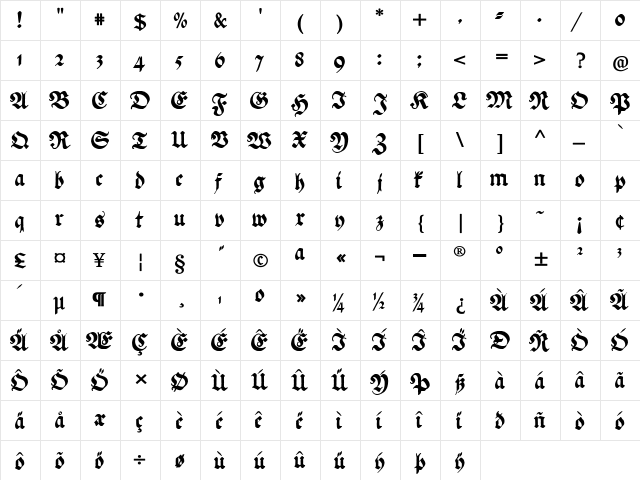
Ehmcke Federfraktur Regular
| Foundry | Peter Wiegel |
| Designer | F. H. Ehmcke um 1935 |
Design Context for Ehmcke Federfraktur Typeface
Ehmcke Federfraktur channels the dramatic heritage of Fraktur and Gothic scripts, bringing a sense of historical gravitas to any design.
Well-suited to band logos, craft beer branding, tattoo lettering, and heritage-themed identities.
Font Pairing: Pair with a clean neutral sans-serif for body copy to let Ehmcke Federfraktur's character lead without overwhelming the composition.
Pro Tip: Use Ehmcke Federfraktur sparingly at large sizes. Even a single word set in blackletter can define the visual register of an entire design.